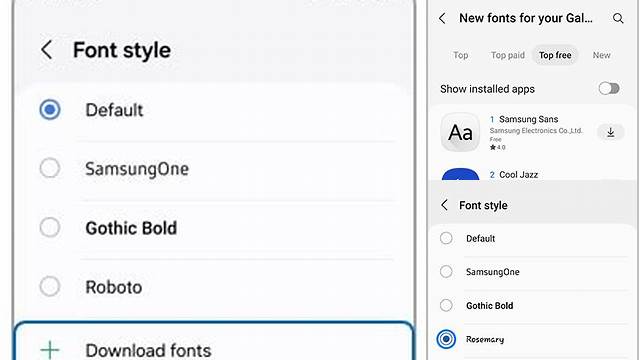
Best Fonts For Samsung: Change Your Phone's Style
Hey guys! Want to give your Samsung phone a fresh, new look? One of the easiest ways to do that is by changing the font. Your phone's font can greatly impact your overall experience, making it more enjoyable and personalized. Whether you're aiming for a sleek, modern vibe or a playful, whimsical feel, Samsung offers a range of options to suit your style. In this comprehensive guide, we'll explore everything you need to know about fonts on your Samsung phone, from built-in options to custom downloads and troubleshooting tips. So, let's dive in and discover how to make your phone truly yours!
Why Change Your Samsung Phone's Font?
Before we get into the how, let's talk about the why. Fonts are more than just letters; they're a crucial part of your phone's visual identity. The default font might be okay, but it might not fully reflect your personality or preferences. Changing the font can:
- Improve Readability: Some fonts are simply easier to read than others, especially for those with visual impairments. A clear, well-designed font can reduce eye strain and make reading on your phone a more comfortable experience.
- Personalize Your Device: Your phone is an extension of yourself, and the font you choose can be a reflection of your personal style. Whether you prefer a classic serif font or a modern sans-serif, there's a font out there that matches your taste.
- Add a Fresh Look: Sometimes, all your phone needs is a minor change to feel new again. Swapping out the font can give your device a fresh, updated appearance without requiring a significant overhaul.
- Enhance Accessibility: For users with specific needs, such as dyslexia, choosing a specialized font like OpenDyslexic can significantly improve reading comprehension and overall usability.
Changing the font on your Samsung phone is a simple yet effective way to personalize your device and enhance your user experience. It allows you to tailor your phone's appearance to your preferences, improve readability, and even address specific accessibility needs. So, why stick with the default when you can explore a world of font possibilities? Let's get started on how you can change your font and make your phone uniquely yours.
Sometimes, it’s not just about the font style, but also the size. Here’s how to adjust the font size on your Samsung phone:
- Use the Font Size Slider: In the "Font size and style" menu, you’ll see a slider labeled "Font size."
- Adjust as Needed: Drag the slider to the left to decrease the font size or to the right to increase it. You'll see a real-time preview of the font size at the top of the screen.
- Find Your Sweet Spot: Adjust the size until you find a comfortable level that’s easy on your eyes.
4. Downloading and Installing New Fonts
If the pre-installed fonts aren’t doing it for you, don’t worry! You can download and install new fonts from the Galaxy Store. Here’s how:
- Tap on Download Fonts: In the "Font style" menu, you'll see an option labeled "Download fonts." Tap on it.
- Browse the Galaxy Store: This will open the Galaxy Store, where you can browse a wide variety of fonts, both free and paid.
- Choose a Font: Find a font you like and tap on it to view more details.
- Download and Install: If the font is free, tap the "Download" button. If it’s a paid font, you’ll need to purchase it before downloading. Once downloaded, tap "Install."
- Apply the New Font: After installation, the font will appear in your list of available fonts in the "Font style" menu. Simply select it to apply it to your phone.
Changing the font on your Samsung phone is a straightforward process, whether you're using the pre-installed options or downloading new ones from the Galaxy Store. By following these steps, you can customize your phone's font to match your style and preferences, making your device feel truly personalized.
Exploring Font Options on the Galaxy Store
The Galaxy Store is a treasure trove of fonts, offering a wide range of styles to suit every taste. Whether you're looking for something elegant, playful, or professional, you're likely to find it here. Let's take a closer look at what the Galaxy Store has to offer and how to navigate it effectively.
Free vs. Paid Fonts
One of the first things you'll notice when browsing the Galaxy Store is that there are both free and paid fonts available. Here’s a breakdown of what to expect from each:
- Free Fonts: These are a great way to try out new styles without spending any money. While the selection of free fonts may be more limited than the paid options, there are still plenty of high-quality choices available. Free fonts are perfect for users who want to personalize their phone without breaking the bank.
- Paid Fonts: If you're looking for something more unique or professionally designed, paid fonts might be the way to go. These fonts often come with a higher level of polish and detail, and they can really elevate the look of your phone. Prices for paid fonts typically range from a few dollars to around five dollars.
Navigating the Galaxy Store
The Galaxy Store is designed to be user-friendly, but here are a few tips to help you find the perfect font:
- Use the Search Bar: If you have a specific font style in mind (e.g., "script," "bold," or "retro"), use the search bar to quickly find relevant options.
- Browse Categories: The Galaxy Store often organizes fonts into categories like "Popular," "New Releases," and "Best Sellers." Browsing these categories can help you discover trending fonts and hidden gems.
- Check Ratings and Reviews: Before downloading a font, take a look at the ratings and reviews from other users. This can give you valuable insights into the font's quality and readability.
- Preview Fonts: The Galaxy Store allows you to preview fonts before downloading them. Make sure to preview the font in different sizes and contexts to see how it looks on your phone.
Popular Font Styles
To give you a taste of what's available, here are some popular font styles you might find on the Galaxy Store:
- Sans-Serif: Clean and modern, sans-serif fonts are a great choice for a minimalist look. They're also highly readable, making them ideal for everyday use.
- Serif: Serif fonts have small decorative strokes at the ends of the letters, giving them a classic and elegant feel. They're often used in formal settings and can add a touch of sophistication to your phone.
- Script: Script fonts mimic handwriting and can add a personal and artistic touch to your phone. They're perfect for users who want to express their creativity.
- Display: Display fonts are designed to be eye-catching and unique. They come in a wide variety of styles, from bold and futuristic to whimsical and playful.
Exploring font options on the Galaxy Store opens up a world of possibilities for personalizing your Samsung phone. Whether you opt for free fonts or invest in paid ones, the key is to find a style that resonates with you and enhances your overall user experience. Take your time to browse, preview, and experiment with different fonts until you find the perfect fit.
Even with a straightforward process, you might encounter some issues while changing fonts on your Samsung phone. Let's tackle some common problems and how to fix them.
1. Font Not Applying
Sometimes, you might select a new font, but it doesn't seem to apply across your system. Here’s what you can do:
- Restart Your Phone: This is the classic fix for many tech issues, and it often works for font problems as well. A simple restart can clear any temporary glitches and ensure the new font is properly loaded.
- Check Font Compatibility: Some fonts may not be fully compatible with your device or operating system. Make sure the font you've chosen is designed for Samsung phones and the version of Android you're running.
- Clear Cache: Clearing the cache of the Settings app can sometimes resolve font-related issues. To do this, go to Settings > Apps > Settings > Storage > Clear Cache.
2. Font Size Issues
If your font size is too small or too large, it can make reading difficult. Here’s how to address this:
- Adjust Font Size in Settings: As we discussed earlier, you can adjust the font size in Settings > Display > Font size and style. Use the slider to find a comfortable size.
- Check Accessibility Settings: Sometimes, accessibility settings can override your font size preferences. Go to Settings > Accessibility and check if any settings are affecting your font size.
- Use Zoom Features: If you still find the font too small, you can use your phone's zoom features. Most Samsung phones have a built-in screen zoom function that you can activate in the accessibility settings.
3. Downloaded Fonts Not Showing Up
If you've downloaded a font from the Galaxy Store, but it's not appearing in your font list, try these steps:
- Reinstall the Font: Sometimes, the installation process might encounter a hiccup. Try uninstalling the font and then reinstalling it from the Galaxy Store.
- Check Storage Permissions: Make sure the Galaxy Store has permission to access your phone's storage. You can check this in Settings > Apps > Galaxy Store > Permissions.
- Update the Galaxy Store: An outdated version of the Galaxy Store might have compatibility issues. Update the app to the latest version and try downloading the font again.
4. Font Looks Blurry or Distorted
A blurry or distorted font can be a sign of a low-quality font file or a compatibility issue. Here’s what to do:
- Choose High-Quality Fonts: When downloading fonts from the Galaxy Store, look for fonts with good ratings and reviews. These fonts are more likely to be well-designed and optimized for your device.
- Check Screen Resolution: If your screen resolution is set too low, it can affect font clarity. Make sure your screen resolution is set to the recommended level in Settings > Display > Screen resolution.
- Try a Different Font: If the issue persists with a specific font, it might be a problem with the font file itself. Try using a different font to see if the problem goes away.
5. Restoring Default Font
If you’re not happy with your new font and want to go back to the default, here’s how:
- Go to Font Style Settings: Navigate to Settings > Display > Font size and style > Font style.
- Select Default Font: In the font list, you should see an option for "Default." Tap on it to restore the default font.
Troubleshooting font issues on your Samsung phone can involve a few steps, but with these tips, you should be able to resolve most common problems. Remember to restart your phone, check compatibility, and ensure you're using high-quality fonts. By addressing these issues, you can enjoy a personalized and visually appealing experience on your Samsung device.
Choosing the right font for your Samsung phone is a personal decision, but there are some guidelines you can follow to make the best choice for your needs. A well-chosen font can enhance readability, reflect your personal style, and improve your overall user experience. Here are some tips to help you pick the perfect font:
1. Consider Readability
The primary function of a font is to be readable. If you can't easily read the text on your screen, the font is not serving its purpose. Here are some factors to consider:
- Font Style: Sans-serif fonts (like Roboto or Open Sans) are generally considered more readable on screens than serif fonts (like Times New Roman). Sans-serif fonts have cleaner lines and fewer decorative elements, making them easier to read at smaller sizes.
- Font Weight: The weight of a font refers to its thickness. A font that is too thin can be hard to read, while a font that is too bold can appear cluttered. Look for a font with a medium weight that strikes a balance between visibility and clarity.
- Letter Spacing: The spacing between letters can also affect readability. Fonts with adequate letter spacing are easier to read because the letters don't run together. Avoid fonts that are too condensed or too wide.
2. Think About Your Personal Style
Your phone's font can be an expression of your personal style. Choose a font that reflects your personality and preferences. Here are some styles to consider:
- Modern: If you prefer a clean, minimalist look, opt for a sans-serif font with a simple design. Modern fonts often have a sleek and sophisticated feel.
- Classic: Serif fonts can add a touch of elegance and formality to your phone. They're a good choice if you prefer a traditional aesthetic.
- Playful: If you want to add some fun to your phone, consider a script or display font. These fonts can be whimsical and eye-catching, but be careful not to overdo it – readability is still important.
- Professional: For a professional look, choose a font that is clean, clear, and easy to read. Sans-serif fonts like Arial or Helvetica are good options.
3. Test Different Fonts
Before committing to a font, test it out on your phone to see how it looks in different contexts. Here are some things to try:
- Read Long Passages of Text: See how the font looks when reading articles, emails, or books. Can you read comfortably for an extended period of time?
- Check Font Size: Adjust the font size to see how the font looks at different sizes. Does it remain readable when it's small, and does it look clear when it's large?
- Preview in Different Apps: Fonts can look different in different apps. Check how the font looks in your favorite apps, such as your messaging app, browser, and social media apps.
4. Consider Accessibility
If you have any visual impairments or specific reading needs, accessibility is a crucial factor in choosing a font. Here are some tips:
- Choose a High-Contrast Font: A font with good contrast against the background is easier to read. Dark fonts on a light background (or vice versa) provide the best contrast.
- Use a Dyslexia-Friendly Font: If you have dyslexia, consider using a specialized font like OpenDyslexic. These fonts are designed to make reading easier for people with dyslexia.
- Adjust Font Size and Weight: Experiment with different font sizes and weights to find what works best for you. A larger, bolder font can be easier to read for some people.
5. Don't Overdo It
While it's fun to experiment with different fonts, it's important not to overdo it. Using too many different fonts can make your phone look cluttered and unprofessional. Stick to one or two fonts for a consistent and cohesive look.
Choosing the right font for your Samsung phone is a balance between personal preference and practical considerations. By considering readability, style, accessibility, and testing different options, you can find a font that enhances your user experience and makes your phone truly yours.
So there you have it, folks! Changing the font on your Samsung phone is a simple yet powerful way to personalize your device and enhance your overall experience. From improving readability to expressing your unique style, the right font can make a big difference. Whether you stick with the pre-installed options, explore the vast selection in the Galaxy Store, or troubleshoot any issues along the way, we hope this guide has given you the knowledge and confidence to find the perfect font for you.
Remember, your phone is an extension of yourself, and the fonts you choose play a significant role in that. So go ahead, experiment, and have fun discovering the font that truly speaks to you. Happy customizing!